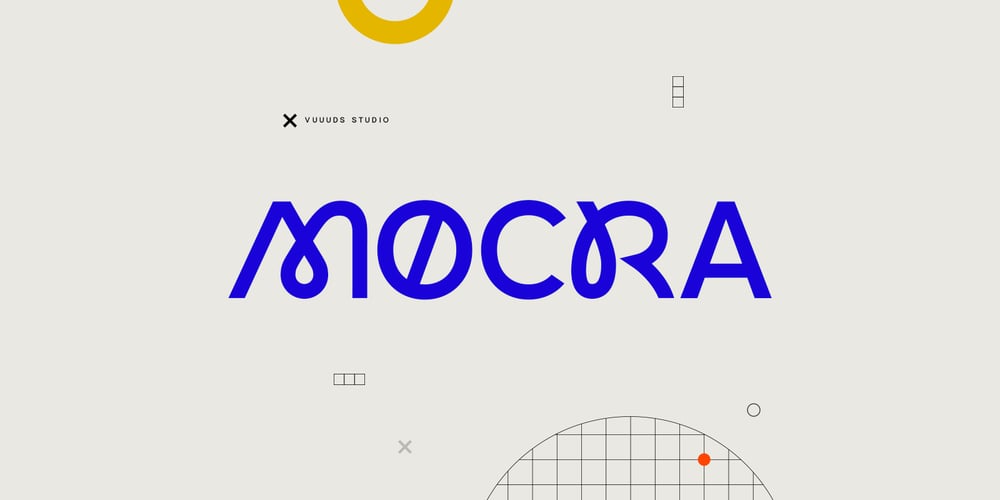
Mocra Font Family was designed by Agung Syaifudin and published by vuuuds. Mocra contains 1 styles and family package options. Introducing Motra Font!Motra is modern experimental display font, every single letters have been uniquely crafted.This font including beautiful alternate glyph. You can access the alternate glyph via Font Book (Mac user) or Windows Character Map (Windows user), I’ve been put the link tutorial inside the zip file.Foreign languages support: ÀÁÂÃÄÅÆÇÈÉÊËÌÍÎÏÐÑÒÓÔÕÖØÙÚÛÜÝàáâãäåæçèéêëìíîïðñòóôõöøùúûüýÿThanks for looking.